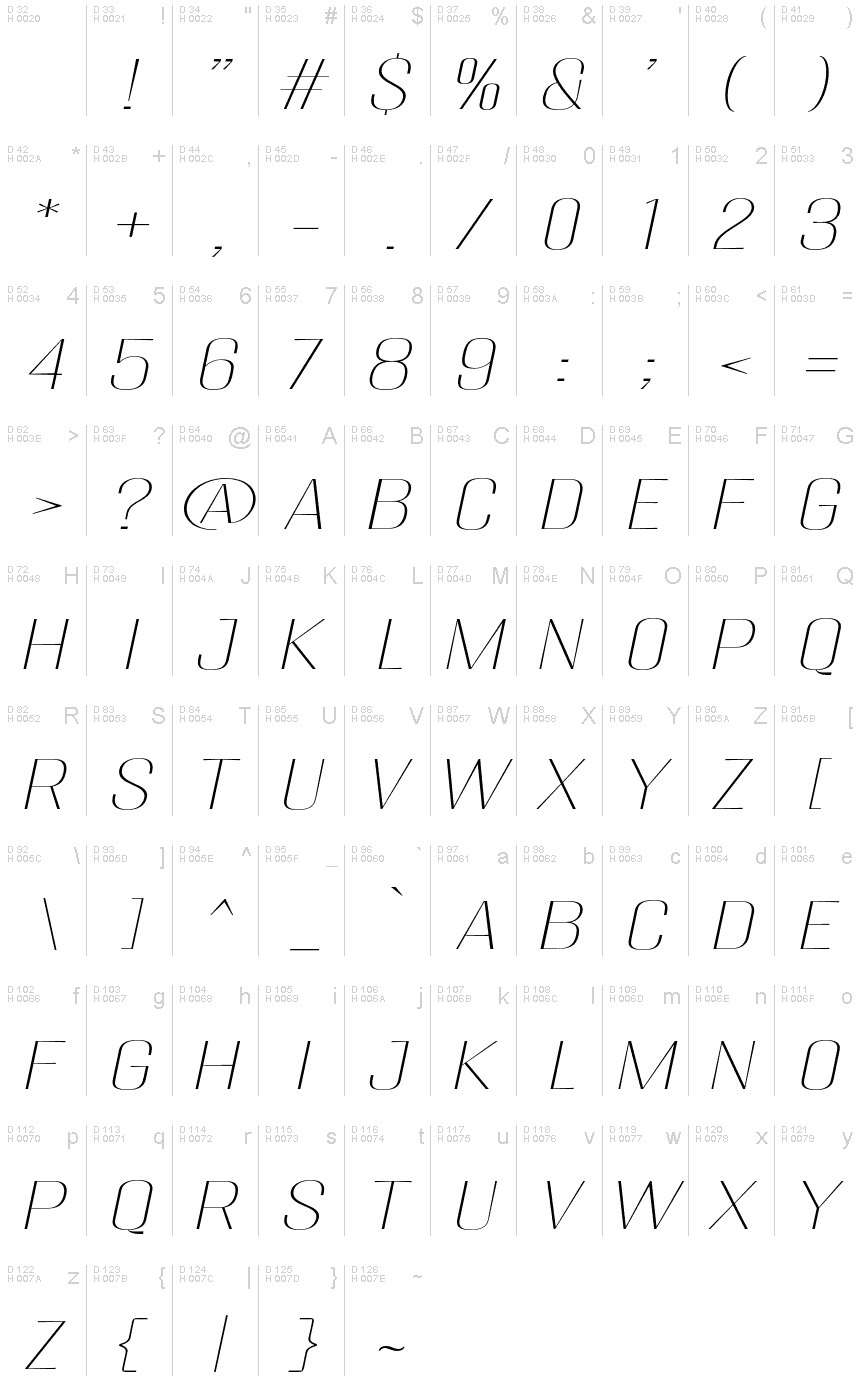
Migha-ThinExpandedSlant
Migha Thin Expanded Slant is a stunning sans serif font designed by Seniors Studio. Its ultra-light weight and expanded width make it perfect for modern and minimalist designs that require a touch of sophistication. This font's slanted style adds an extra level of uniqueness, making it suitable for branding projects, logo design, and even editorial layouts. Its thin weight also makes it ideal for use in titles and headings to create clean and crisp typography that stands out. Whether you're working on a website, packaging design, or print materials, Migha Thin Expanded Slant is sure to elevate your project with its sleek and stylish look.
Seniors Studio